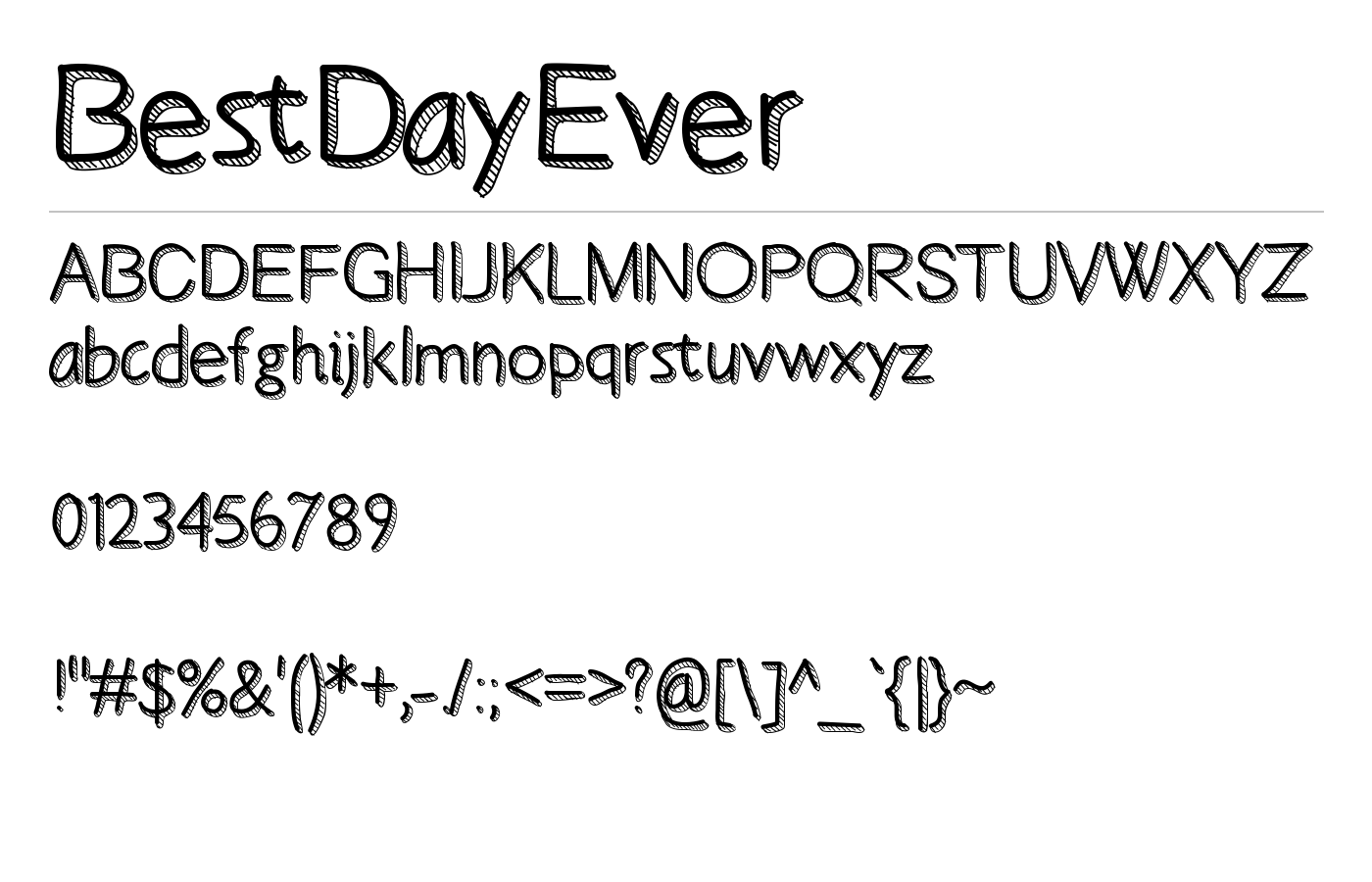
BestDayEver is a playful, hand-drawn sans serif font with a lively and casual vibe. Its irregular, sketch-like strokes and slightly condensed letterforms give it an inviting, creative feel, perfect for projects that want to convey friendliness and fun. This font works well for informal branding, children’s materials, invitations, and any design needing a personal, handmade touch.
BestDayEver Font
About BestDayEver Font